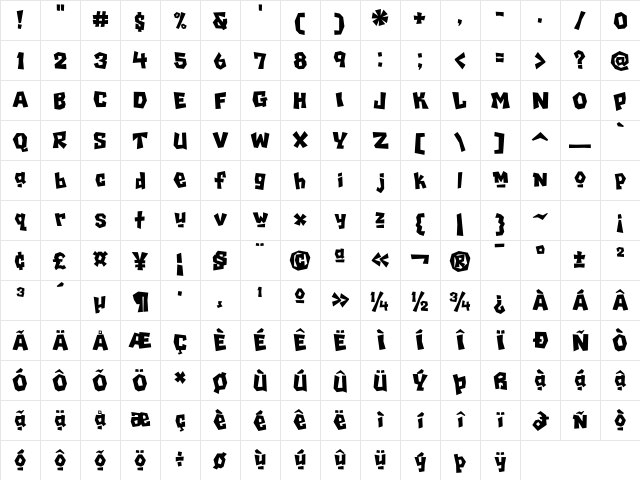
Chilada Medium Free Font
Chilada Medium
Design Context for Chilada
Chilada is a composed and adaptable typeface that performs quietly and consistently across a wide range of design contexts.